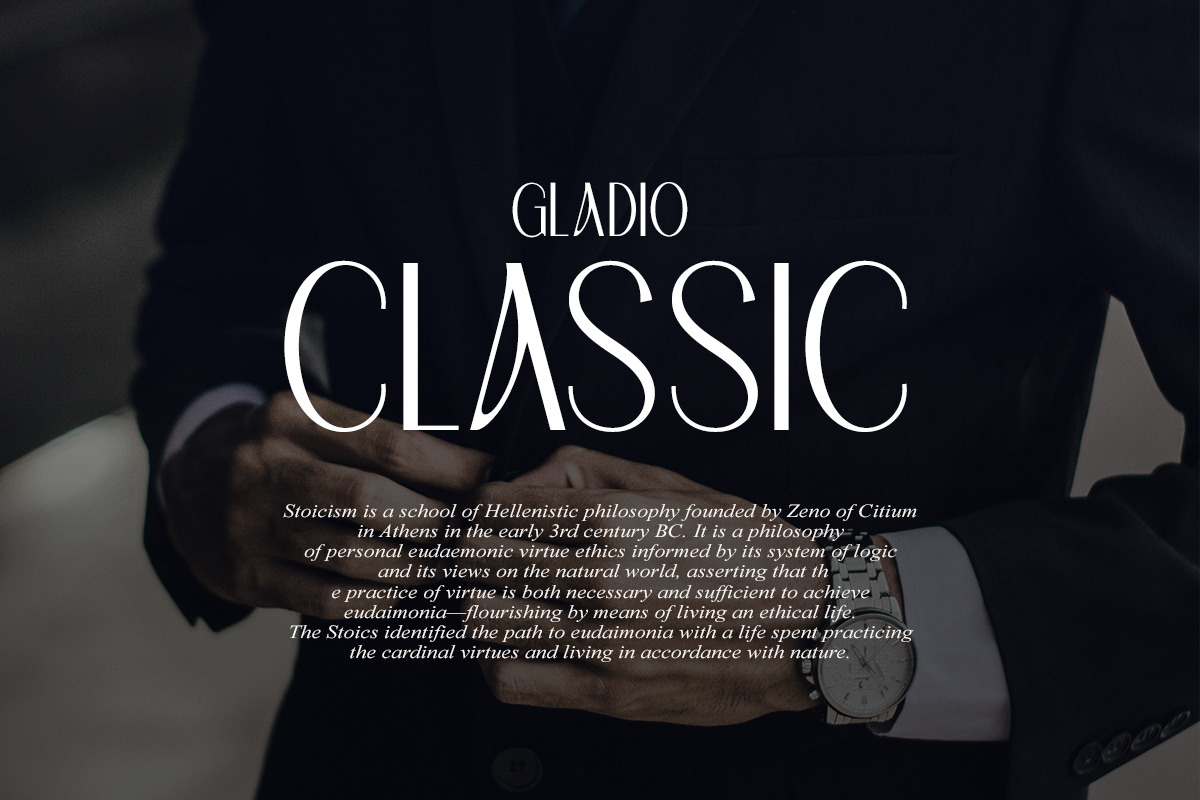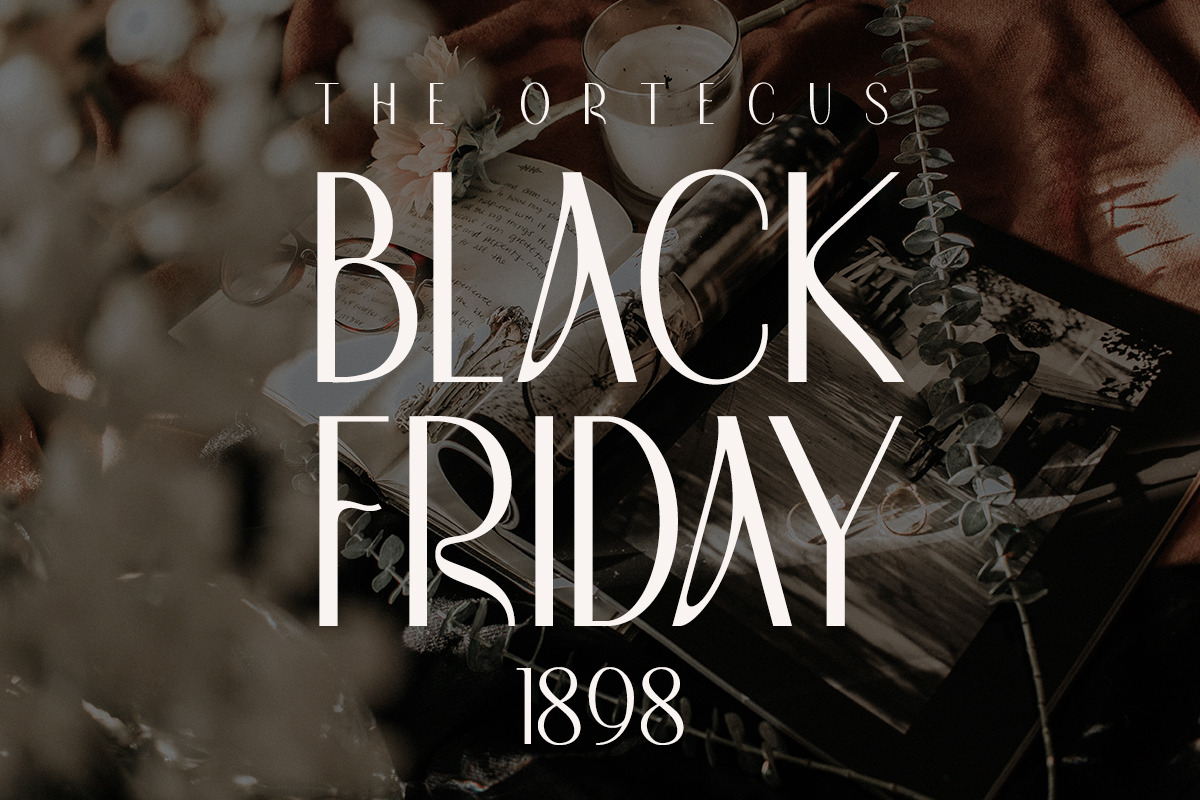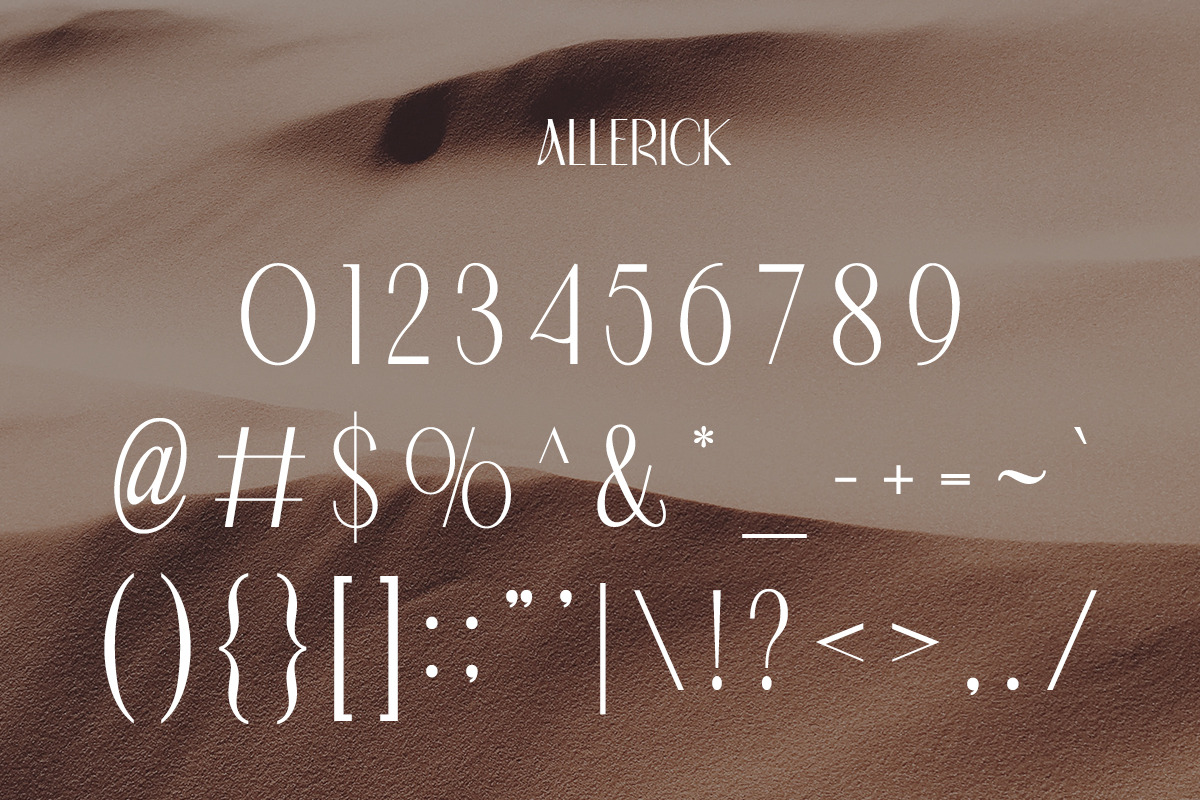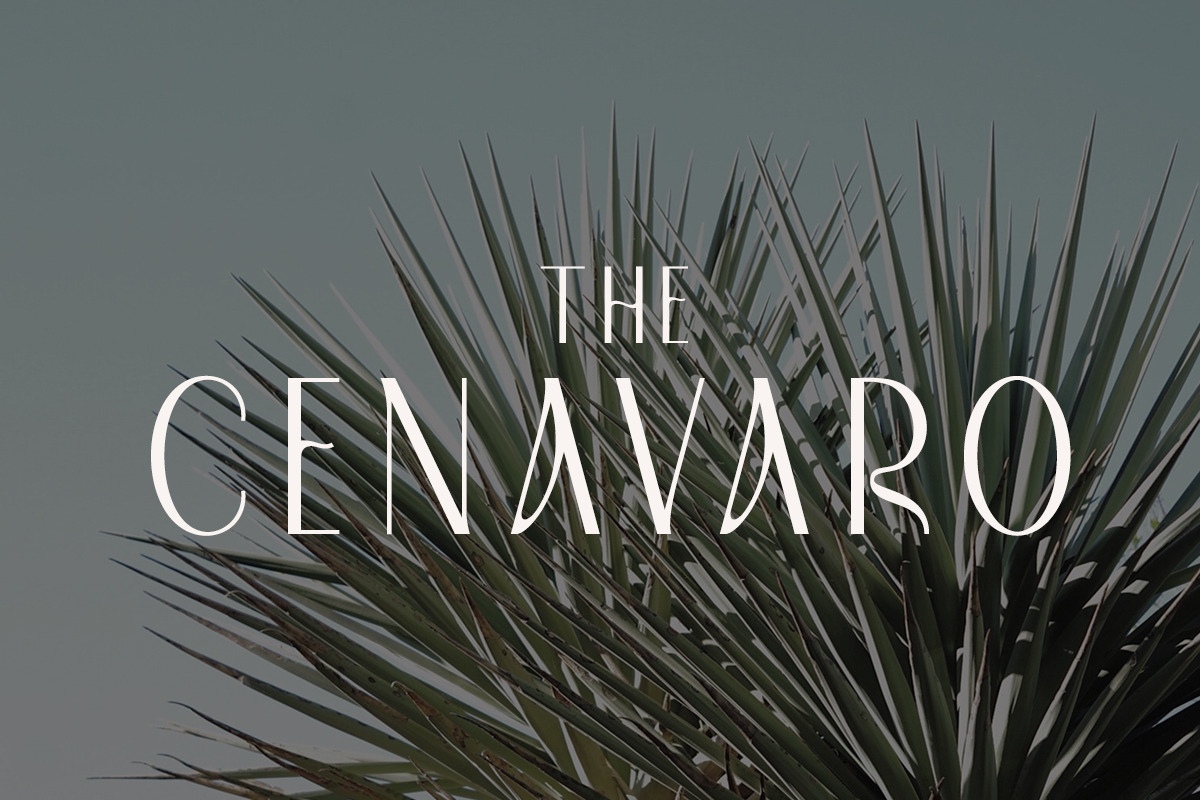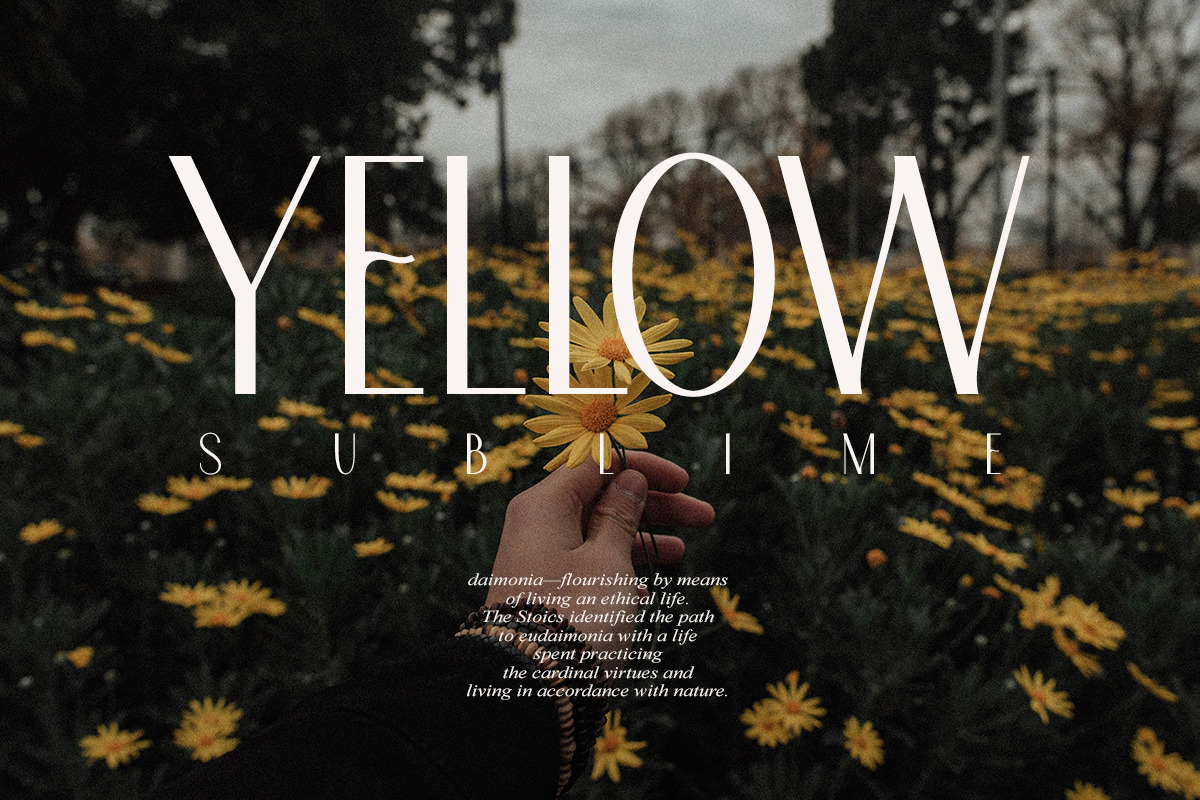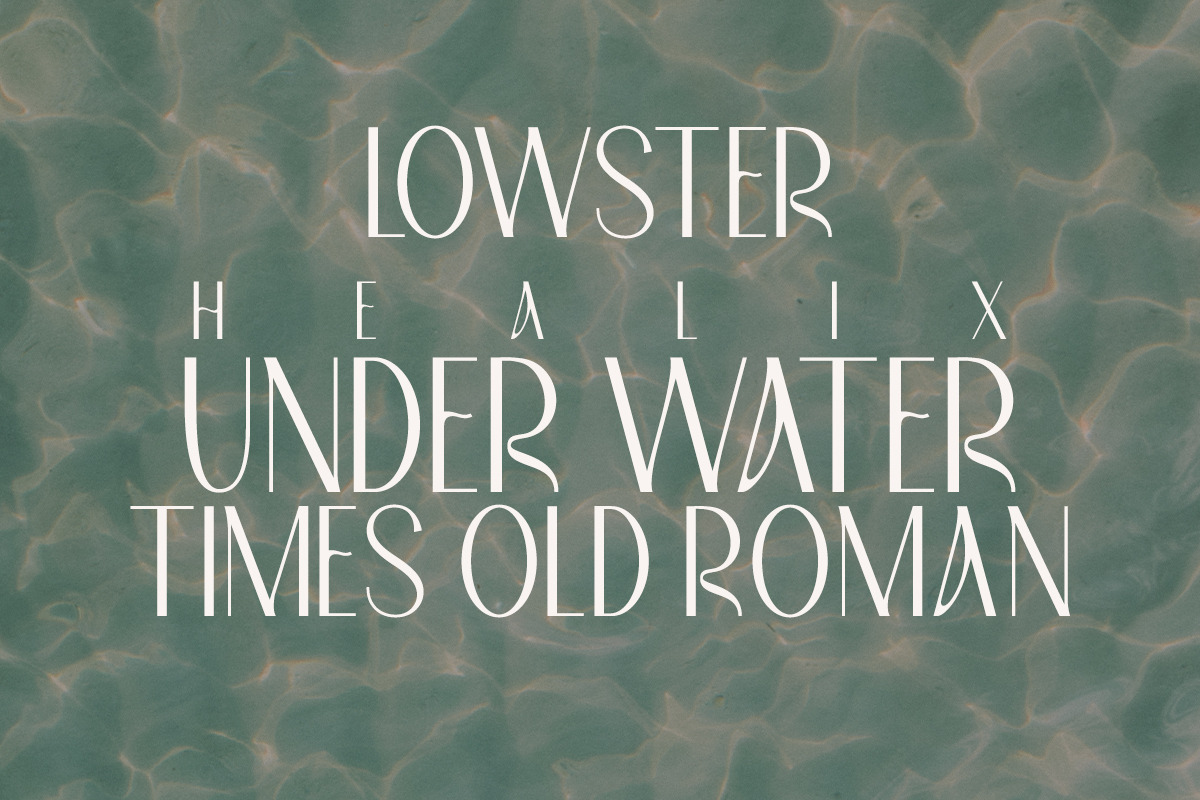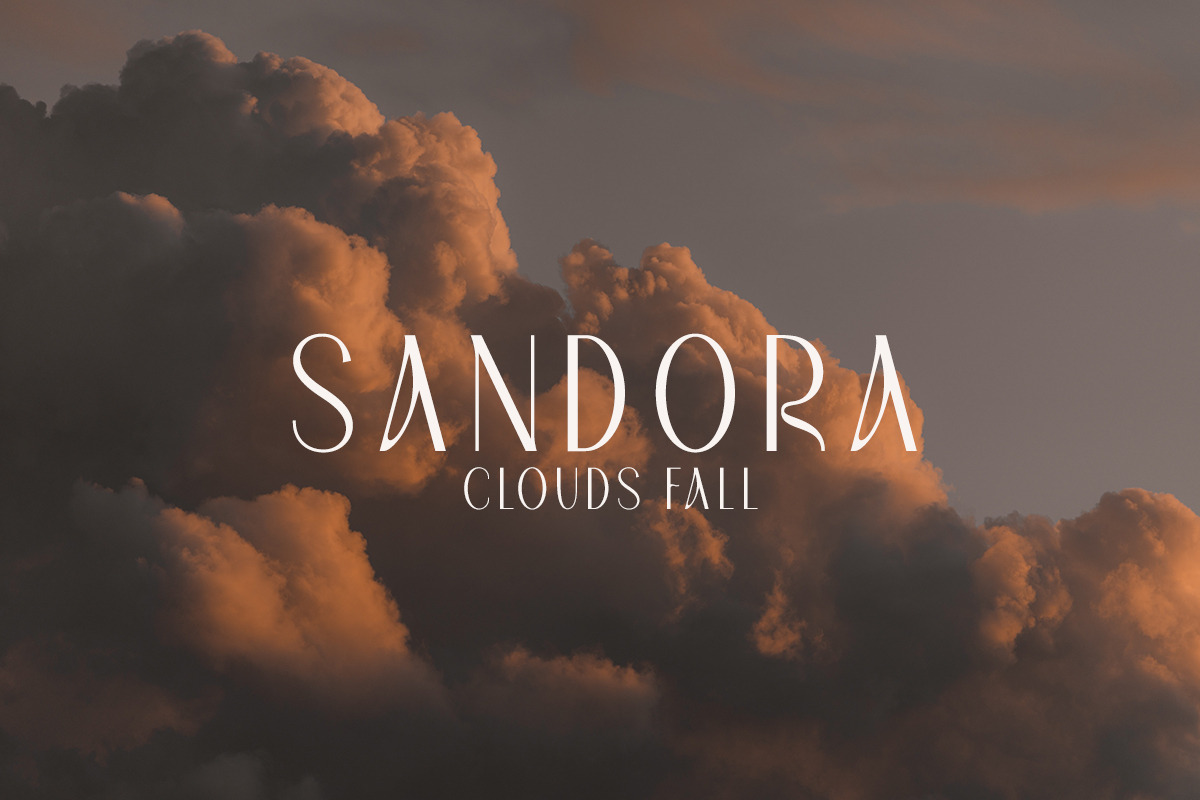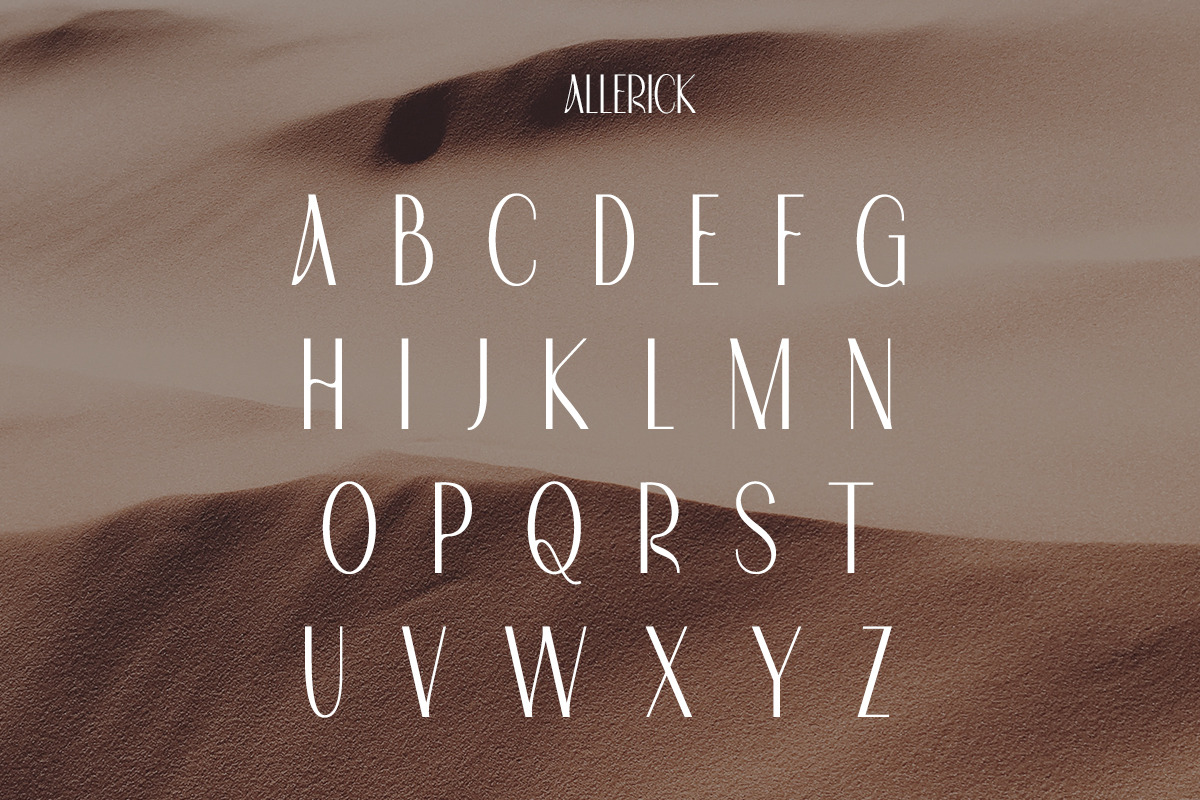
Allerick | Modern Classic
Allerick fonts include uppercase letters, numerals, a large range of punctuation. Sans Serif font with Modern Classic style. Created for poster, web design, branding, illustrations, badges, and some other works.